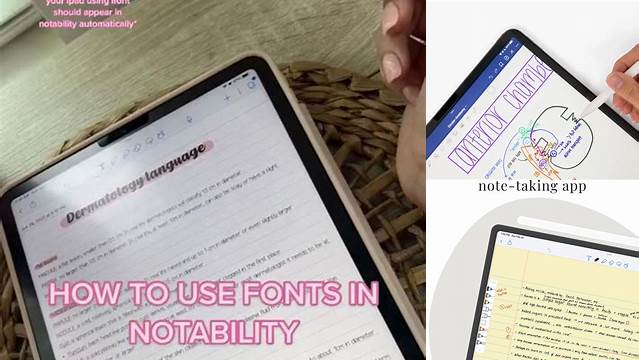
Best Fonts For IPad Note-Taking: Enhance Your Digital Notes
Choosing the right font for iPad note-taking can significantly impact your digital note-taking experience. A well-chosen font can improve readability, reduce eye strain, and even boost your overall productivity. This guide explores a variety of fonts perfect for use on your iPad, helping you make the most of apps like GoodNotes, Notability, and more. Let’s dive in and find the perfect font to elevate your note-taking game!
1. Why Font Choice Matters for iPad Note-Taking
Hey guys, ever wondered why some notes just feel better than others? It’s not just the content, but also the font! The right font can seriously impact readability, making long study sessions way less of a drag. Think about it – a clear, easy-to-read font reduces eye strain, helping you stay focused for longer. Plus, a stylish font can even make note-taking more enjoyable, turning a chore into something you actually look forward to! Different fonts also convey different vibes. A professional-looking font might be perfect for work notes, while a fun, handwritten-style font could spice up your personal journal. So, taking the time to choose the right font is totally worth it. You'll be surprised at how much it can boost your productivity and make your notes a joy to revisit. Trust me, your eyes (and your grades!) will thank you.
2. Top 5 Readable Fonts for iPad Notes
When it comes to iPad note-taking, readability is king! Here are five fonts that are super easy on the eyes, perfect for long study sessions or detailed work notes:
- San Francisco: This font is designed by Apple, making it incredibly crisp and clear on iPad screens. Its clean lines and balanced letterforms make it a top choice for extended reading and writing. You'll find it's pre-installed on most iPads, so you don't even need to download it!
- Helvetica: A classic for a reason! Helvetica's neutral design ensures that it doesn't distract from the content, allowing you to focus on what's important. Its simple, sans-serif style is highly legible in various sizes, making it ideal for headings and body text.
- Open Sans: Designed with readability in mind, Open Sans features a slightly wider letter spacing, which enhances clarity on digital screens. It’s a great option if you find other fonts feeling a bit cramped or tight.
- Roboto: This font is clean, modern, and highly versatile. Its geometric forms and friendly curves make it easy to read both in print and on screens. Roboto is a fantastic choice for creating a consistent and professional look across all your notes.
- Arial: Often overlooked but consistently reliable, Arial is a solid choice for straightforward note-taking. Its simple and clean design ensures that your notes remain easy to read, no matter how long you’re writing.
3. Best Handwriting Fonts for iPad Note-Taking
For those of you who love the feel of handwriting but want the convenience of digital notes, handwriting fonts are the way to go! These fonts mimic the look and feel of real handwriting, adding a personal touch to your digital notes. Here are some top picks for handwriting fonts perfect for iPad note-taking:
- Pencil Pete: This font captures the essence of writing with a pencil, giving your notes a natural, hand-drawn feel. It's perfect for brainstorming, doodling, and adding a creative touch to your studies.
- Journal: If you want your digital notes to look like they came straight out of a leather-bound journal, this is the font for you. It has a slightly rough texture, giving it a vintage and authentic vibe.
- Coming Soon: This font is designed to look like someone is writing on a whiteboard or notepad in real-time. It's a fun and quirky choice for adding a playful touch to your notes.
- Permanent Marker: For those who want to make a bold statement, this font is the way to go. It's designed to look like thick, permanent marker strokes, giving your notes a strong and assertive feel.
- Patrick Hand: This font is modeled after a real person's handwriting, giving it a unique and authentic feel. It's perfect for adding a personal touch to your notes and making them feel more human.
4. Fonts for Specific Note-Taking Apps: GoodNotes
GoodNotes is a favorite among iPad users for its powerful features and realistic note-taking experience. Choosing the right font can enhance your GoodNotes experience even further. Here are some great font options for GoodNotes:
- Helvetica Neue: A clean and modern font that is easy to read and perfect for professional or academic notes.
- Avenir Next: This font has a geometric design and is highly legible, making it great for long-form note-taking.
- Gill Sans: With its classic and elegant look, Gill Sans is perfect for those who want a touch of sophistication in their notes.
- Chalkboard: If you're looking for a handwritten style font, Chalkboard is a fun and playful option that still maintains readability.
- Marker Felt: This font mimics the look of a felt-tip marker and is great for adding emphasis or highlighting key points in your notes.
5. Fonts for Specific Note-Taking Apps: Notability
Notability is another popular note-taking app on the iPad, known for its audio recording and annotation features. Here are some excellent font choices to optimize your Notability experience:
- Futura: A geometric sans-serif font that is both stylish and easy to read, making it a great option for general note-taking.
- DIN Alternate: This font has a technical and precise look, perfect for engineering or technical notes.
- American Typewriter: With its classic typewriter look, this font is great for those who want a vintage feel to their notes.
- Courier New: Another typewriter-style font, Courier New is monospaced, meaning each character takes up the same amount of space, which can be helpful for coding notes.
- Bradley Hand: This handwritten font is casual and friendly, making it perfect for personal notes or brainstorming sessions.
6. How to Install Custom Fonts on Your iPad
Want to use a font that isn't pre-installed on your iPad? No problem! Installing custom fonts is easier than you might think. Here's a quick guide:
- Find a Font: First, find the font you want to use. There are many websites where you can download fonts for free or purchase them.
- Download the Font: Download the font file to your iPad. It will usually be in a .ttf or .otf format.
- Use a Font Installation App: You'll need a font installation app from the App Store, such as iFont or AnyFont. These apps allow you to install custom fonts on your iPad.
- Install the Font: Open the font installation app and follow the instructions to install the font. You may need to grant the app permission to install a configuration profile.
- Enjoy Your New Font: Once the font is installed, it should be available in your note-taking apps like GoodNotes and Notability. Go to the font settings in your app and select your new font!
7. The Impact of Font Size on Note-Taking
It’s not just about the font style, guys! The font size plays a huge role in how comfortable your note-taking experience is. Too small, and you'll be squinting like crazy, leading to eye strain and headaches. Too big, and your notes will look clunky and take up too much space. Finding the sweet spot is key!
Experiment with different sizes to see what works best for you. Consider the screen size of your iPad and the distance you typically hold it from your eyes. Also, think about the font itself – some fonts are naturally more legible at smaller sizes than others. A good starting point is around 12-14 points, but feel free to adjust from there. Trust me, spending a few minutes tweaking the font size can make a world of difference in your note-taking comfort and efficiency.
8. Font Color and Its Role in Note Organization
Alright, let's talk about font color! It's not just about making your notes look pretty (though that's a bonus!). Using different colors can be a fantastic way to organize your thoughts and highlight important information. Imagine using red for key concepts, blue for definitions, and green for examples. Suddenly, your notes become a visual map, making it way easier to find what you need, when you need it.
Just be careful not to go overboard! Too many colors can be overwhelming and distracting. Stick to a limited palette of 3-4 colors and use them consistently throughout your notes. This will create a visual hierarchy and make your notes more effective. Plus, think about contrast. Make sure your font color stands out against the background, so it's easy to read. Dark text on a light background is usually the safest bet. So, grab your color wheel and start experimenting – you might be surprised at how much color can boost your note-taking game!
9. Combining Fonts for Effective Note-Taking
Now, for a pro tip: try combining fonts! Using different fonts for headings, subheadings, and body text can create a clear visual structure and make your notes more engaging. Think of it like designing a mini-website – you want to guide the reader's eye and highlight the most important information.
For example, you could use a bold, sans-serif font for headings to grab attention, and a more readable serif font for the body text. Or, you could use a handwritten font for quotes or personal reflections to add a touch of personality. The key is to choose fonts that complement each other and create a cohesive look. Avoid using too many different fonts, as this can make your notes look cluttered and unprofessional. Stick to 2-3 fonts max and use them consistently throughout your notes. With a little experimentation, you can create a visually stunning and highly effective note-taking system!
10. Fonts for Different Subjects: Math and Science
Taking notes for math and science requires fonts that display symbols and equations clearly. Here's what to consider:
11. Fonts for Different Subjects: Literature and History
For literature and history, prioritize readability and a classic feel. Serif fonts often work well.
12. Best Free Fonts for iPad Note-Taking
Explore high-quality, free font options to save money without sacrificing readability.
13. Premium Fonts Worth Investing In
Consider premium fonts that offer unique styles and enhanced readability features.
14. How Font Kerning Affects Readability
Understand how kerning adjustments can improve the spacing between letters for better readability.
15. Font Leading and Its Impact on Note Clarity
Adjust leading (line spacing) to prevent crowding and enhance visual clarity.
16. Monospace Fonts for Coding Notes
Utilize monospace fonts for coding notes to ensure proper alignment and readability.
17. Using Bold and Italics Effectively with Different Fonts
Learn how bold and italics can emphasize key points without disrupting readability.
18. Fonts That Reduce Eye Strain
Choose fonts specifically designed to minimize eye strain during long note-taking sessions.
19. Adapting Fonts for Different Lighting Conditions
Adjust font settings to maintain readability in various lighting environments.
20. Creating Custom Font Styles in Note-Taking Apps
Customize font styles to create a personalized and consistent note-taking experience.
21. Troubleshooting Font Display Issues on iPad
Address common font display problems and ensure consistent appearance.
22. Font Licensing: What You Need to Know
Understand font licensing terms and ensure compliance when using custom fonts.
23. The Psychology of Fonts: Choosing the Right Mood
Select fonts that evoke the desired mood and enhance engagement with your notes.
24. Fonts for Accessibility: Helping All Users
Consider accessibility features when selecting fonts to accommodate users with visual impairments.
25. Using Font Weight to Emphasize Key Points
Utilize font weight (boldness) to highlight critical information in your notes.
26. Choosing Fonts for Collaboration and Sharing
Select fonts that are universally accessible to ensure compatibility when sharing notes.
27. Fonts That Mimic Traditional Handwriting Styles
Explore fonts that replicate calligraphy and other traditional writing styles.
28. The Future of Fonts in Digital Note-Taking
Anticipate future trends in font technology and their impact on digital note-taking.
29. Advanced Typography Tips for Note-Takers
Implement advanced typography techniques to create visually appealing and effective notes.
30. Maintaining Consistency Across All Your Notes
Develop a consistent font strategy to create a unified and organized note-taking system.